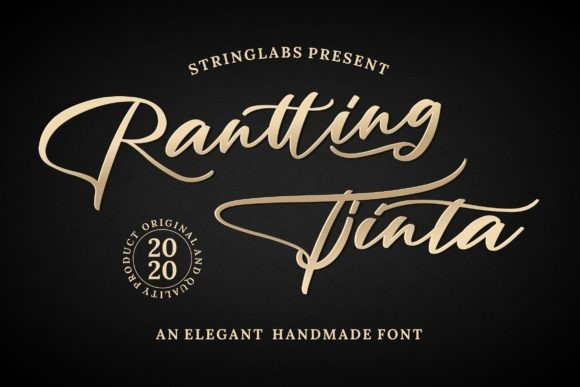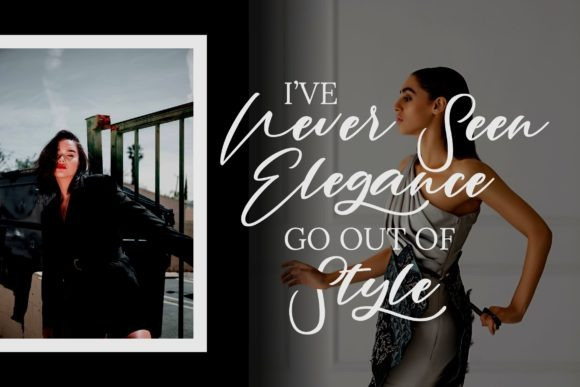
Rantting Tjinta Script Font
Rantting Tjinta is a stylish handwritten script font. This enchanting font was made with digital brush pen strokes and it features an authentic feel. Use it for wedding invitations, business cards, logos, signatures, and much more!